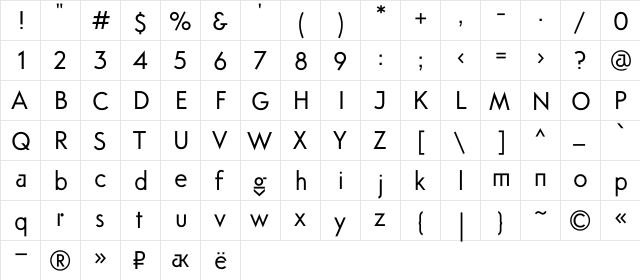
ft anima Regular Font Preview
ft anima Regular
ft anima Regular Font Details
| Foundry | Igor Kosinsky |
| Designer | Igor Kosinsky |
Design Context for ft anima Typeface
ft anima takes a measured approach to typography — its balanced proportions and neutral character make it a reliable workhorse for both digital and print work.